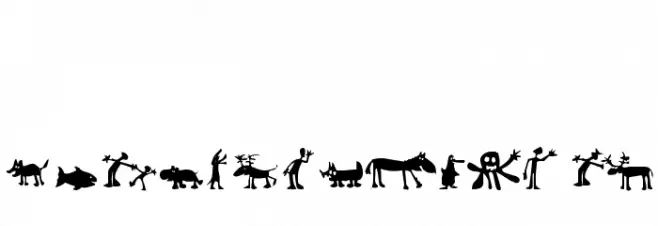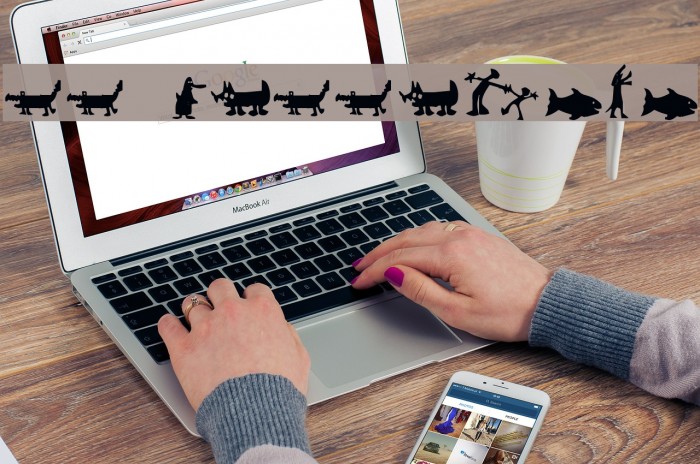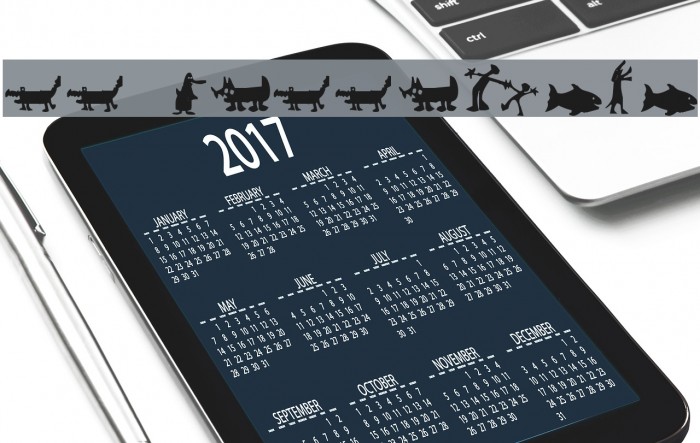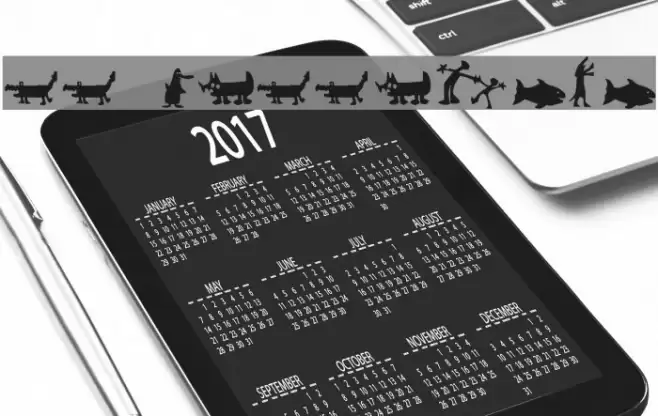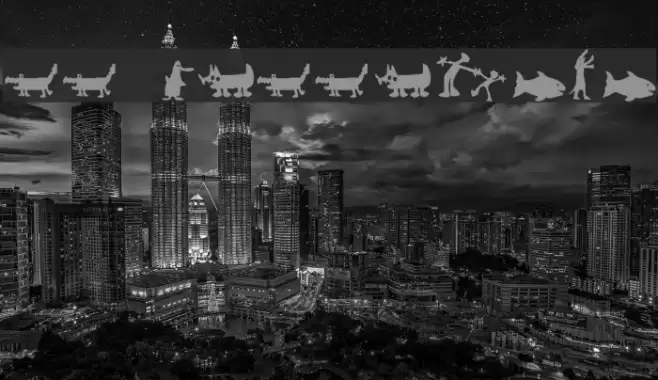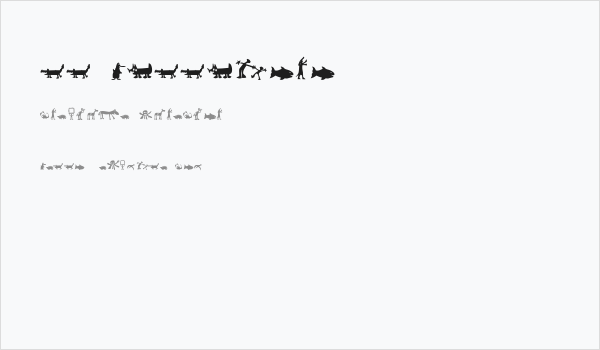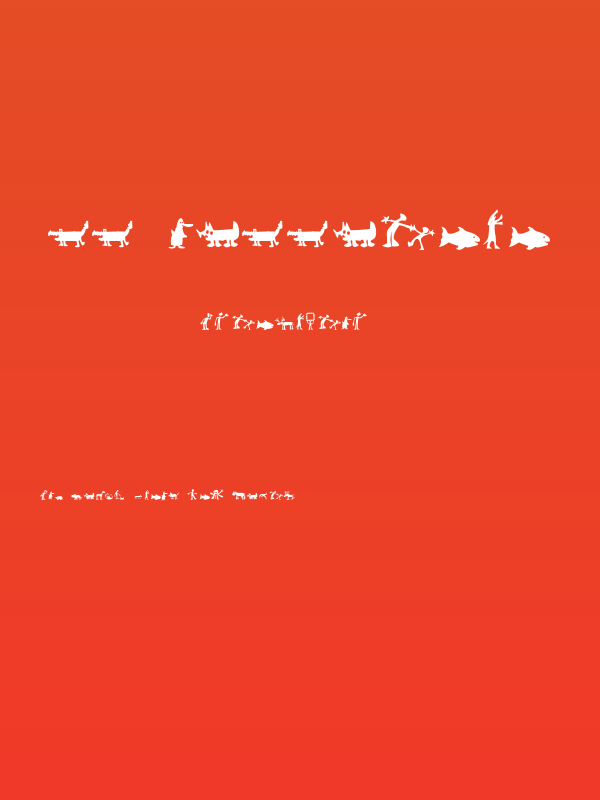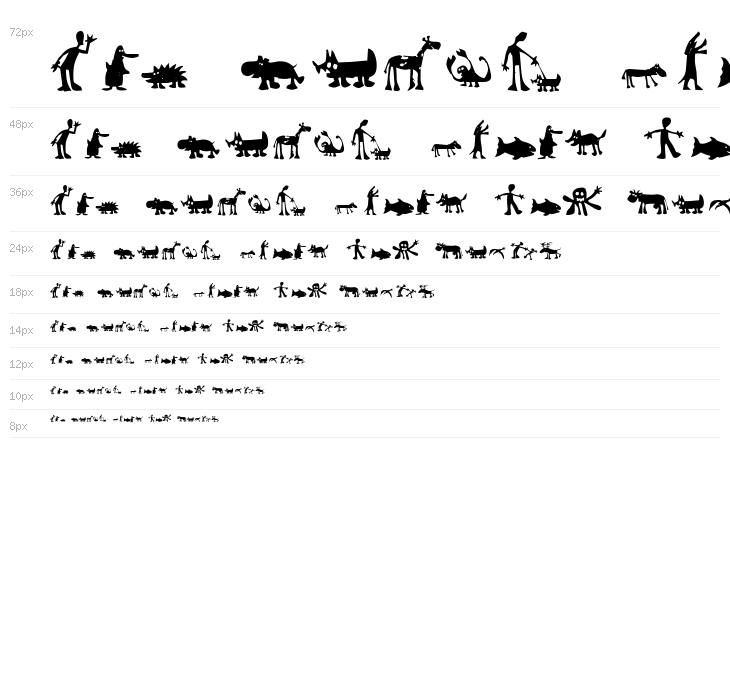
LL HulluPoro Font
LL HulluPoro Description
This font is a whimsical and playful collection of pictographic symbols, featuring a variety of stylized animals and human figures. Each character is represented by a unique silhouette, incorporating elements of nature and fantasy. The designs are bold and striking, with a consistent use of thick lines and solid fills, creating a strong visual impact. The characters are highly decorative, making them suitable for creative and artistic projects. The overall style is reminiscent of ancient cave paintings or tribal art, offering a sense of storytelling and cultural richness.
| Use Case | Logos, Posters, Artistic projects |
| Proposed Projects | Ideal for children's books, creative posters, educational materials, and artistic projects that require a unique and engaging visual style. |